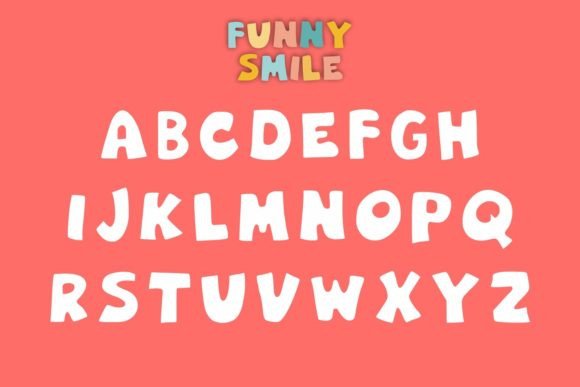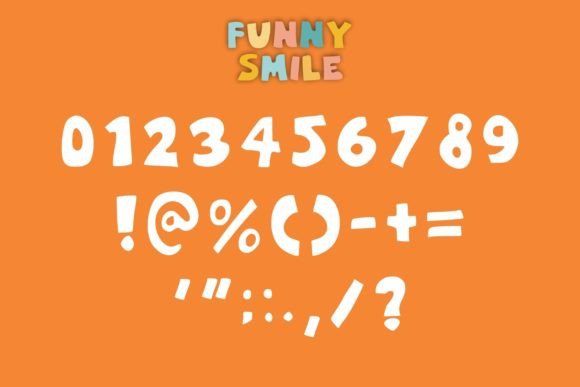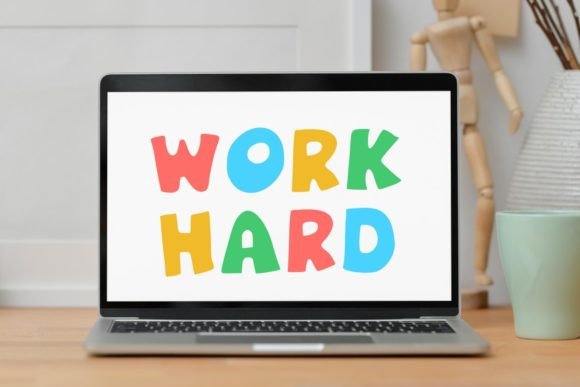
When Creativity Strikes, Funny Smile Font Comes to Play
Who hasn’t experienced that moment when a burst of creativity strikes and you just can’t wait to bring your idea to life? For designers, it’s like a spark of inspiration that sets their imagination ablaze. It’s in these moments that the right font can make all the difference. Enter the Funny Smile Font – a playful display font that’s designed to add a touch of whimsy to any creation.
With its informal and casual style, the Funny Smile Font is perfect for designers looking to add a bit of fun and personality to their work. Whether you’re creating visual designs, product packaging, T-shirts, labels, posters, logos, or more, this font is sure to bring a smile to your face. Its unique signature makes it a top choice among designers, and for good reason – it’s a game-changer when it comes to adding a playful touch to your designs.
- Unique Characteristics: The font’s playful and whimsical design, featuring a distinctive smile, sets it apart from other fonts in the market.
Designer Review: Funny Smile Font
At first glance, the Funny Smile Font seems like it’s going to bring some much-needed personality to your designs. And in some ways, it does ✨. The playful, hand-drawn style is reminiscent of a sketchbook, which could be great for creating a casual, approachable atmosphere.
- The font is highly customizable, with plenty of options for adjusting the color, size, and spacing.
- The characters have a nice, loose feel to them, which could be great for creating a sense of whimsy.
However, there are also some limitations ⚠️:
- The font may be too playful for more formal or professional designs.
- The characters can be difficult to read at smaller sizes.
- The font may not be suitable for use in headers or titles, where a bolder font is typically preferred.
Overall, I’d say that the Funny Smile Font is a fun, lighthearted option that’s perfect for casual designs or projects where you want to add a bit of personality. However, it may not be the best choice for more formal or high-stakes designs.
Funny Smile Font is perfect for:
- Designing playful and humorous content.
- Creating eye-catching social media posts.
- Adding a touch of whimsy to your branding.
Alternatives to Funny Smile Font for Designers
Pacifico is a beautiful, elegant script font that works well for headings and titles. It’s ideal for use in wedding invitations, restaurant menus, and other designs where a touch of sophistication is needed. Pacifico is a more refined and polished alternative to Funny Smile Font, which is often used for more casual and playful designs.
Great Vibes is a fun, energetic script font that’s perfect for designs that need a bit of flair. It’s great for use in advertising, social media graphics, and other designs where a lively atmosphere is desired. Great Vibes is similar to Funny Smile Font in its playful tone, but it has a more modern and sleek feel.
Playfair Display is a luxurious, high-end script font that’s ideal for use in premium designs. It’s great for use in magazines, catalogs, and other publications where a touch of elegance is needed. Playfair Display is a more refined and sophisticated alternative to Funny Smile Font, which is often used for more casual and everyday designs.